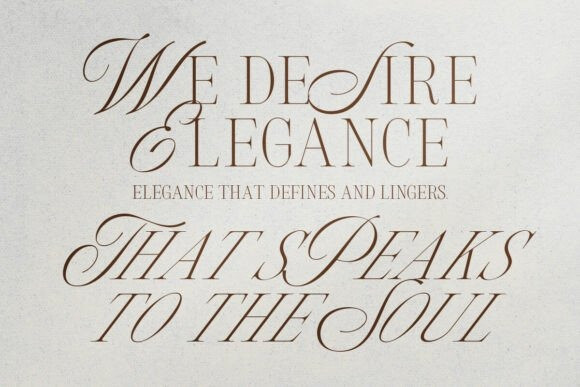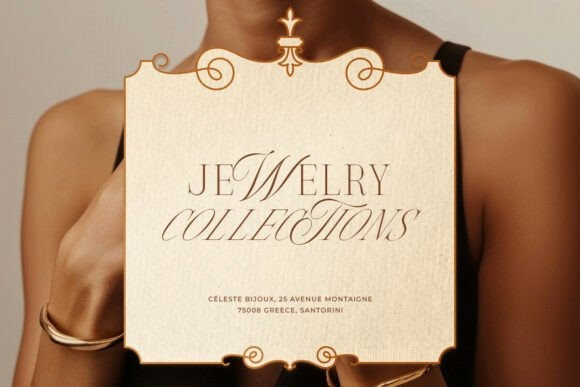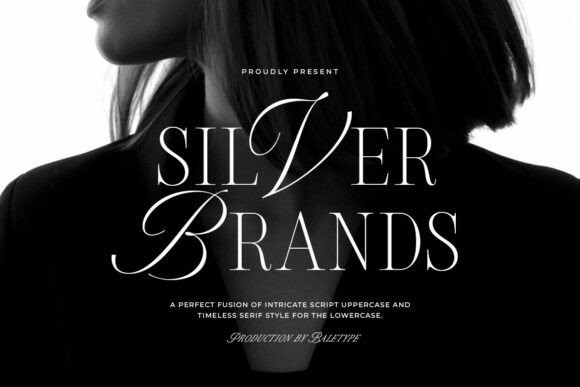
Silver Brands Font
Silver Brands Font is a refined display typeface that masterfully fuses script-style uppercase letters with timeless serif lowercase forms. Elegant and expressive, this font is characterized by its sweeping curves, high contrast strokes, and delicate flourishes, making it ideal for high-end branding, editorial layouts, luxury packaging, fashion campaigns, and upscale invitations. Its sophisticated pairing of formal script and modern serif creates visual harmony while offering versatility across design contexts. With multilingual support, an italic version, and PUA encoding for easy access to alternates and ligatures, Silver Brands is crafted to elevate any project with grace and distinctive elegance.